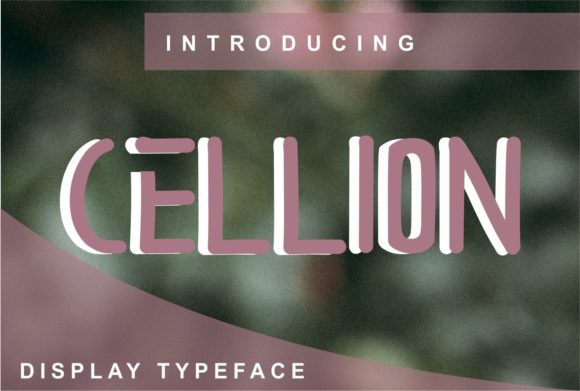
**Embark on a Typographic Adventure with Cellion: The Font That Unleashes Your Creative Spirit**
In the realm of visual communication, where words dance and imagery captivates, fonts hold a pivotal place. They are the unspoken architects of meaning, shaping the tone and ambiance of every message they convey. Amidst a myriad of fonts, Cellion emerges as a radiant star, a display font meticulously crafted to ignite your creativity and elevate your designs to unparalleled heights.
Cellion's essence lies in its inherent duality. It effortlessly blends the clean lines of modern typography with the playful spirit of a handwritten script, creating a font that is both sophisticated and whimsical. This unique blend makes Cellion the perfect choice for a diverse range of projects, from playful flyers that demand attention to elegant invitations that exude charm.
Step into the world of Cellion and discover a font that is as versatile as your imagination. Whether you're crafting eye-catching headlines that leap off the page or penning heartfelt letters that resonate with emotion, Cellion seamlessly adapts to your every need. Its boundless potential will empower you to express yourself with originality and flair, leaving an unforgettable mark on your audience.
With Cellion at your fingertips, you'll find yourself reaching for it time and time again. Its timeless appeal and unwavering versatility will make it a cornerstone of your font collection, a trusted companion that will accompany you through countless creative endeavors.
So why settle for ordinary fonts when you can embrace the extraordinary? Dive into the world of Cellion today and unlock a treasure trove of typographic possibilities. Let your creativity soar with a font that is as captivating as it is versatile, as timeless as it is modern. With Cellion, your designs will not simply convey words; they will paint vivid pictures, evoke emotions, and leave an everlasting impression on all who encounter them.